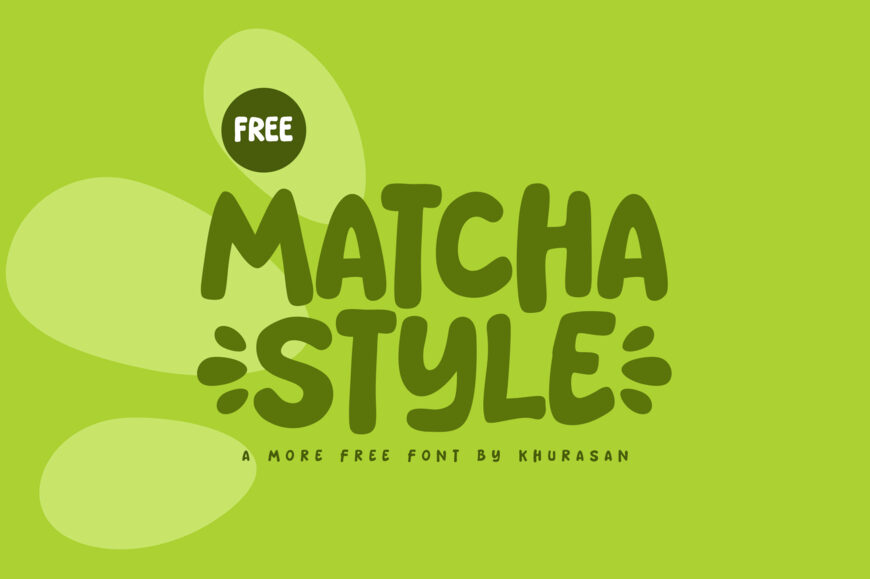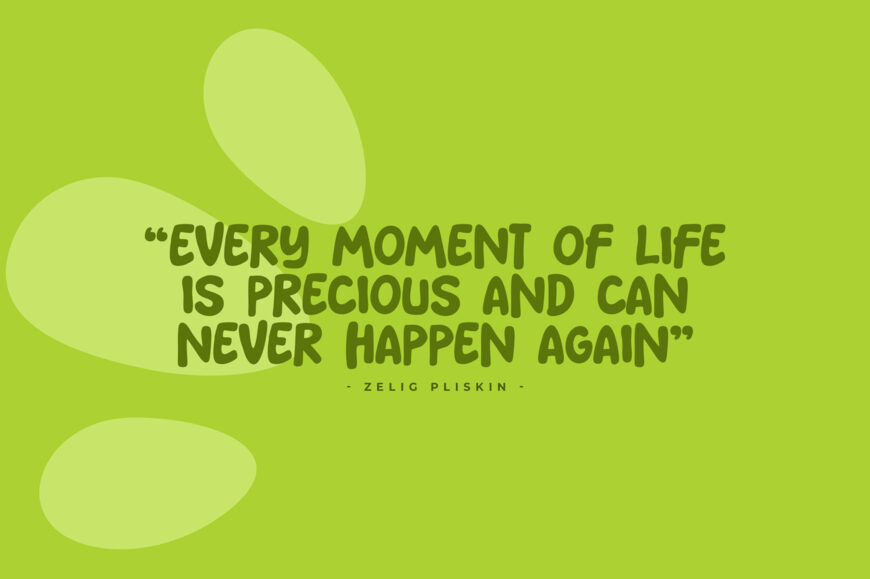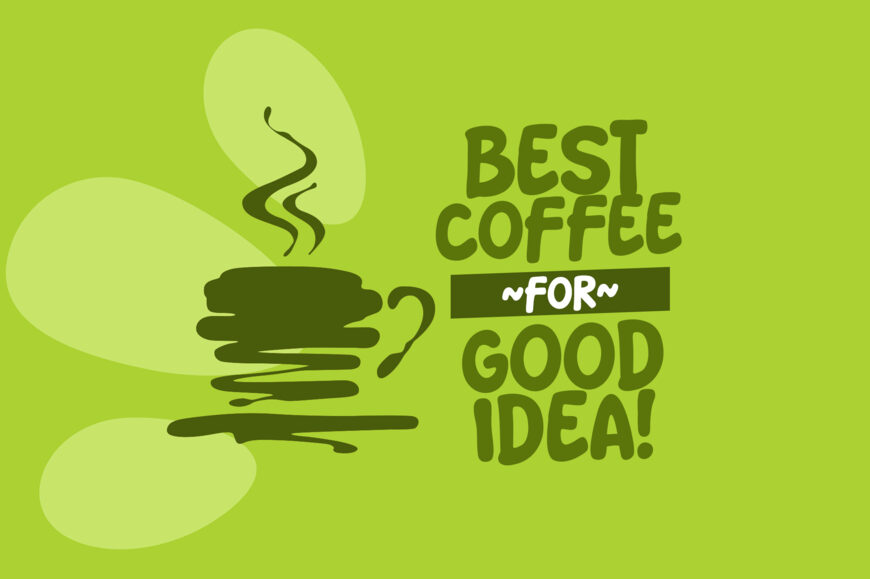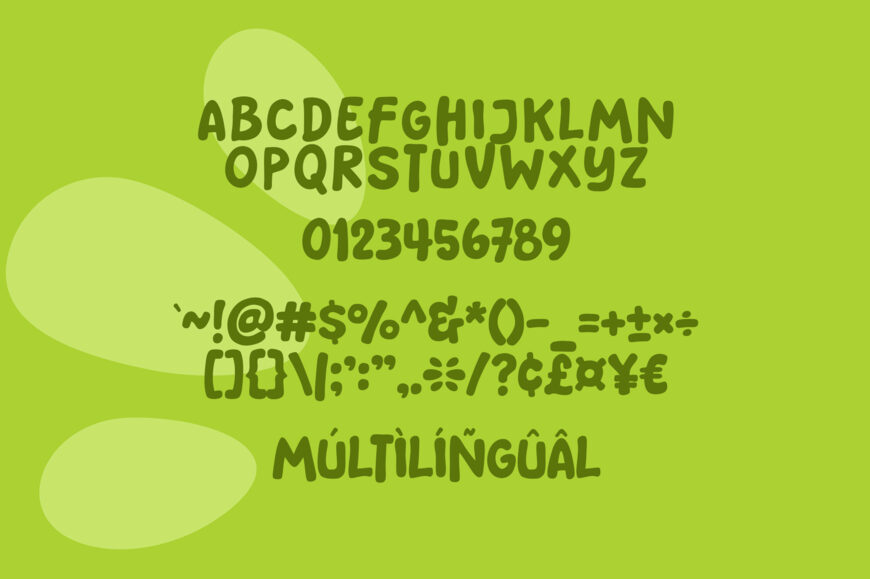
Breathe an air of relaxed, casual energy into your layouts with Matcha Style, a wonderfully expressive display typeface. This modern hand-drawn font balances smooth, medium-weight marker strokes with playful, organic curves and mismatched mixed-case baseline heights that mimic natural handwriting on the fly.